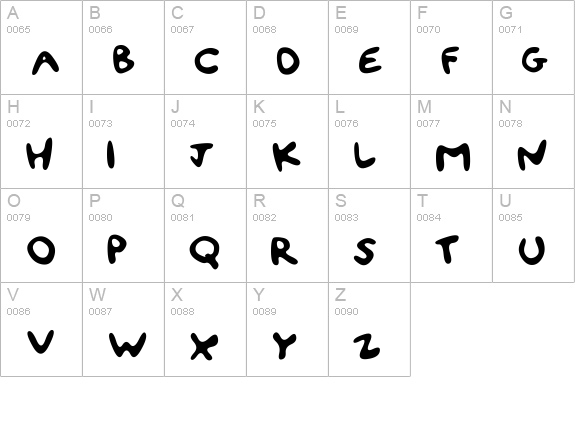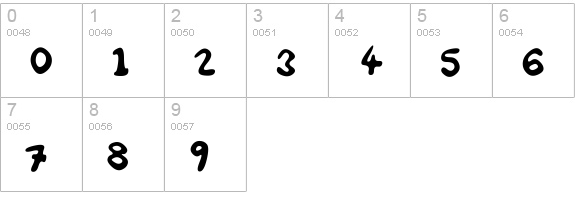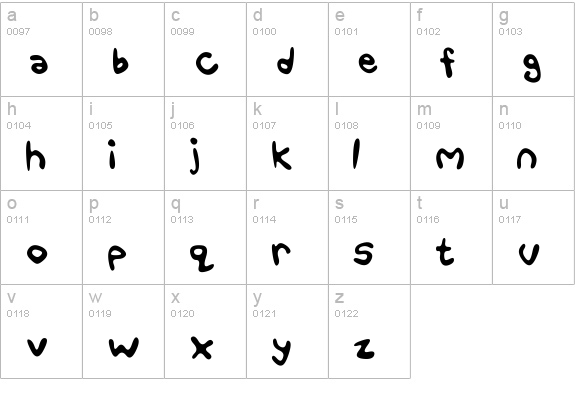
Fun Smiles Font Details
Fun Smiles is a free for personal use font in the Fancy > Comic category, designed by Darrell Flood. It has been downloaded 72 times and is available for Windows, Mac and Linux.
Fun Smiles font is a delightful and playful typeface that is sure to bring joy to any design project. With its whimsical and friendly appearance, Fun Smiles is perfect for adding a touch of cheerfulness to invitations, greeting cards, posters, and more. The rounded edges and quirky shapes of the letters create a sense of fun and lightheartedness that is bound to make any text stand out.